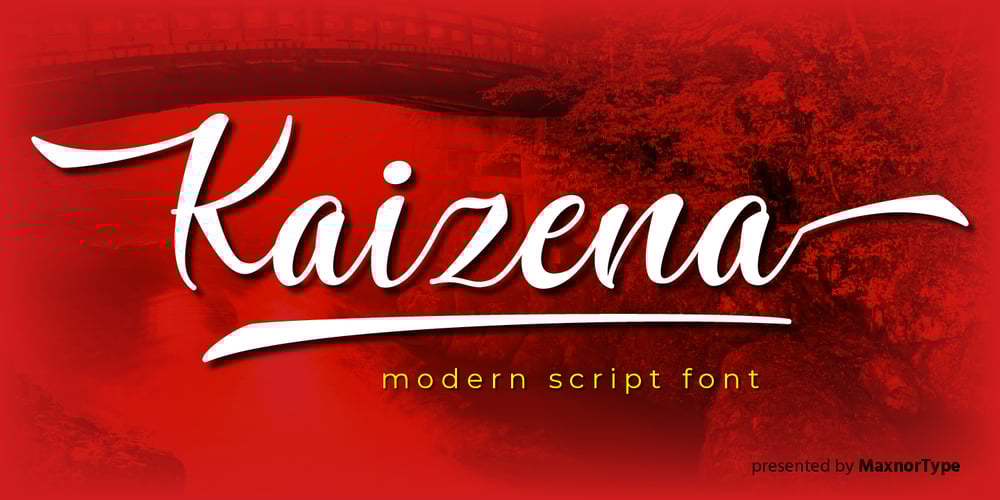
Kaizena Font Family was designed by Ahmad N. and published by MaxnorType. Kaizena contains 1 styles and family package options. Kaizena is a modern script font with alternates, final form, stylistic sets, including front and back swashes. It can be used for various purposes, and suitable for logo design, branding, greeting cards, stationery, wedding invitations and much more. The design of Kaizena nuanced Japanese style, but it is very feasible to use in modern themed designs. Kaizena uses OpenType Features, so designers can access alternate glyphs easily with graphic design softwares. Besides that, these alternate glyphs are located in Private Use Area, so they can be accessed easily with Character Map, Babel Map, or font manager softwares.